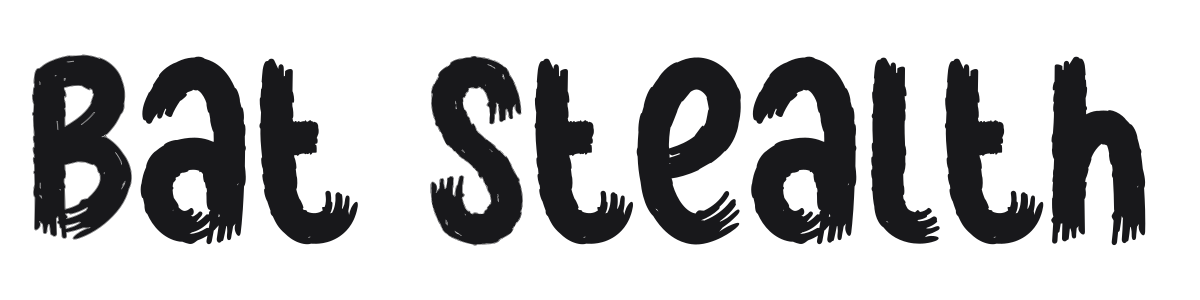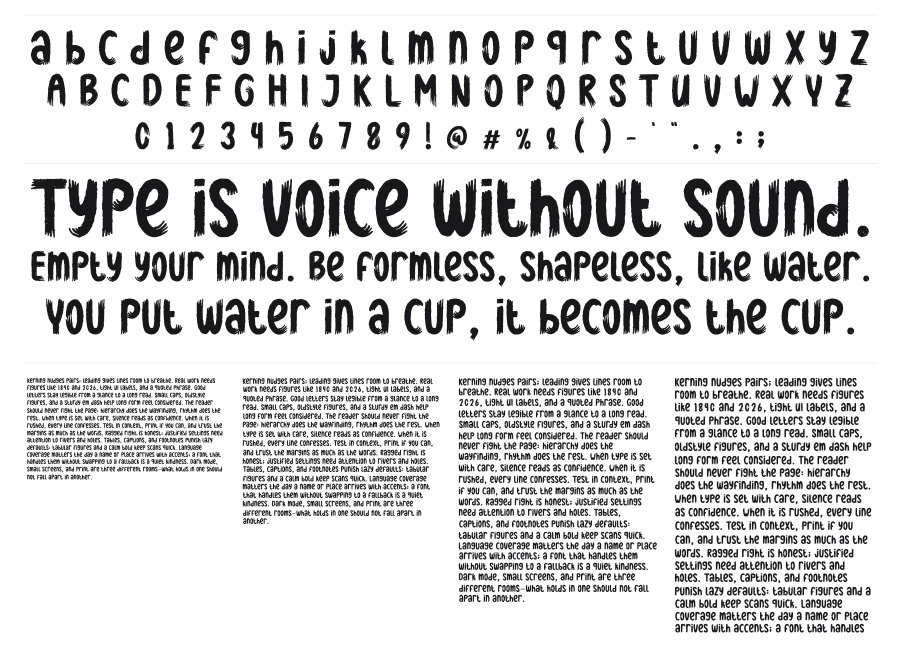
Bat Stealth
Bat Stealth is a bold, heavily distressed display font with thick rounded strokes covered in rough, scratchy texture. Despite its name suggesting something sinister, the chunky proportions and irregular hand-drawn quality land somewhere between spooky and playful. It works well on halloween materials, band posters, horror-themed packaging, or any project that needs a raw, handcrafted edge.